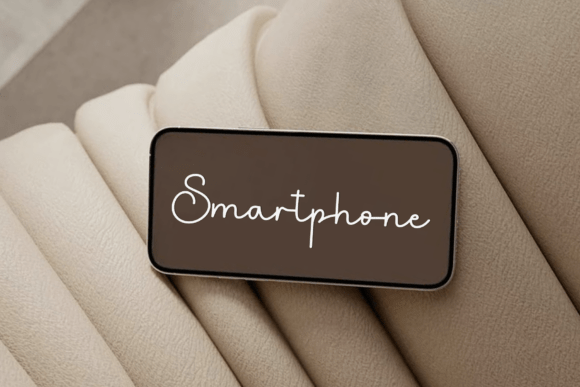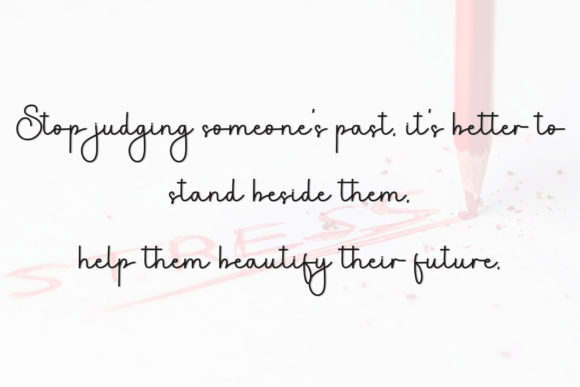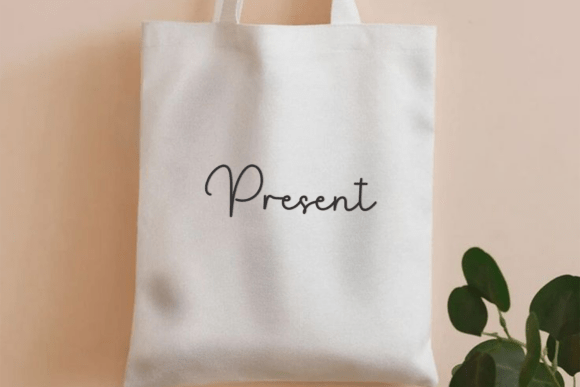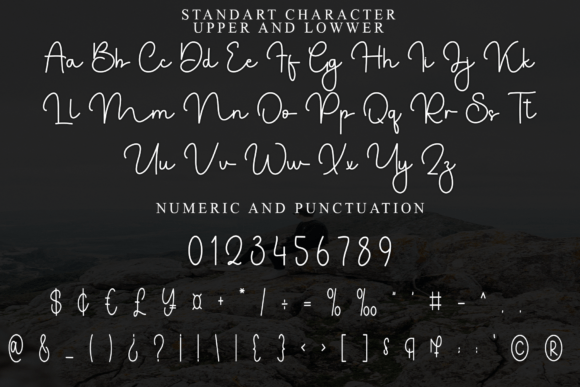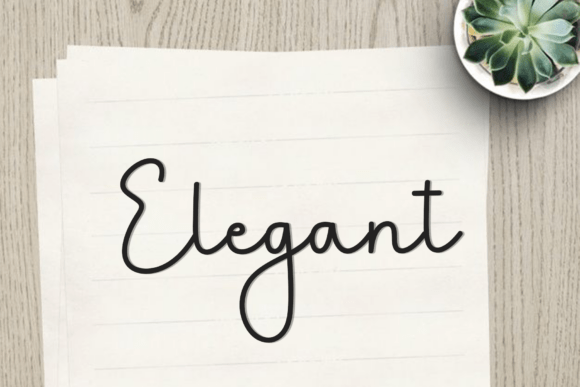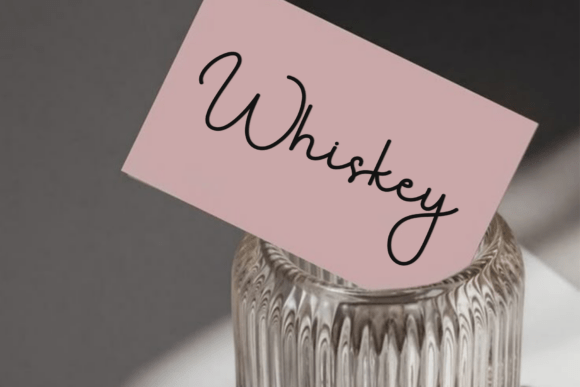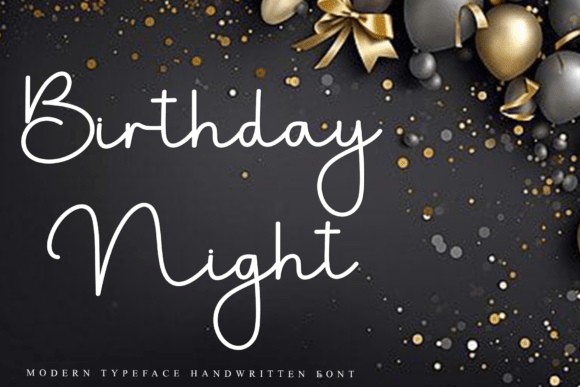
Introducing Birthday Night Font: Elevate Your Designs with a Unique and Eye-Catching Style
Are you tired of using the same old fonts for your design projects? Look no further than the Birthday Night Font, a beautiful and eye-catching font that is sure to take your creations to the next level. With its soft, unique touch and distinctive strokes, this font is perfect for designers, crafters, and artists looking to add a special touch to their work.
A Versatile Font for a Wide Range of Projects
One of the best things about the Birthday Night Font is its versatility. Whether you’re working on a design project, crafting a handmade card, or creating a work of art, this font is sure to be a great fit. Its natural, effortless style makes it perfect for a wide range of products, from invitations and greeting cards to posters, flyers, and more.
With various characters to choose from, you’ll have all the tools you need to create unique and eye-catching designs. The font’s distinctive strokes give it a special character, making it meaningful and memorable. Whether you’re looking to create a cohesive brand identity or simply want to add some personality to your designs, the Birthday Night Font is an excellent choice.
Compatibility and Ease of Use
The font is also easy to work with, even for those who are new to design. With its clear, legible letters and simple installation process, you can start using the Birthday Night Font right away. Whether you’re a seasoned designer or just starting out, this font is a great addition to your toolkit.
The Birthday Night Font is a dream come true for designers and crafters. Its unique style and versatility make it perfect for a wide range of projects, from handmade cards and invitations to posters, flyers, and more. With this font, you can add a personal touch to your designs, making them more appealing and memorable.
Whether you’re creating digital designs or working on a craft project, the Birthday Night Font is a great choice. Its soft, natural style is perfect for creating beautiful, eye-catching designs that will stand out from the crowd. Plus, with its wide range of characters, you can create unique and personalized designs that reflect your style and personality.
Enhance Your Designs with the Birthday Night Font
If you’re looking to take your designs to the next level, the Birthday Night Font is an excellent choice. Its unique style and versatility make it perfect for a wide range of projects, from design and crafting to art and more. With this font, you can create beautiful, eye-catching designs that will appeal to audiences across different artistic and creative fields.
So why settle for boring, generic fonts when you can add a special touch to your designs with the Birthday Night Font? With its soft, unique touch and distinctive strokes, this font is sure to elevate your designs and make them more memorable. Try it out today and see the difference it can make!
Key Features of the Birthday Night Font
- Unique and eye-catching font style
- Soft, natural touch with distinctive strokes
- Versatile and perfect for a wide range of projects
- Wide range of characters to choose from
- Perfect for designers, crafters, and artists
With its unique style, versatility, and ease of use, the Birthday Night Font is a must-have for any designer, crafter, or artist. Try it out today and see the difference it can make in your designs!